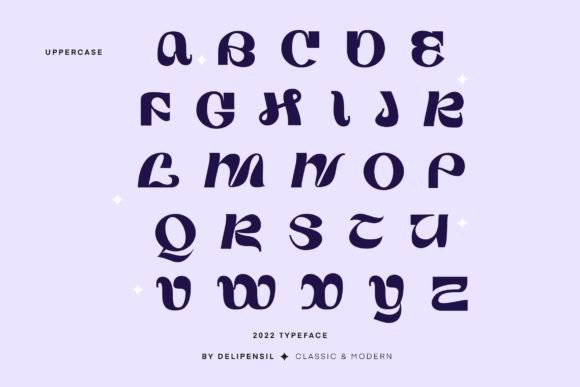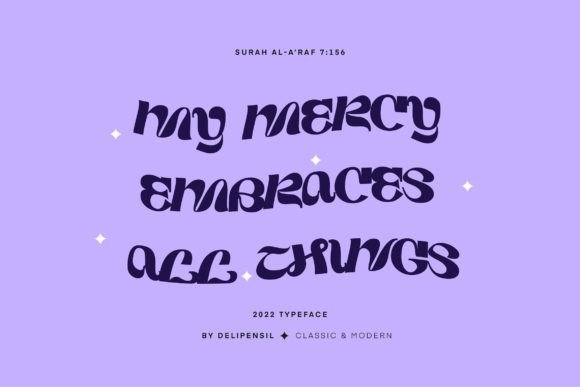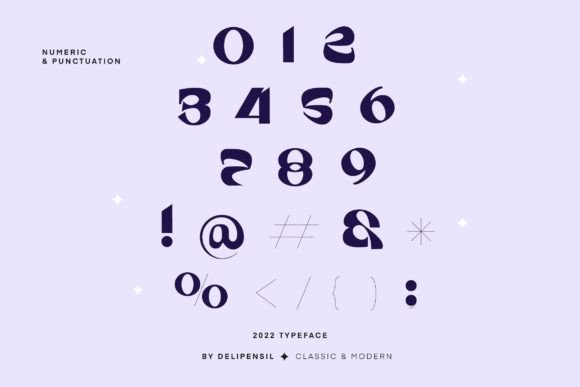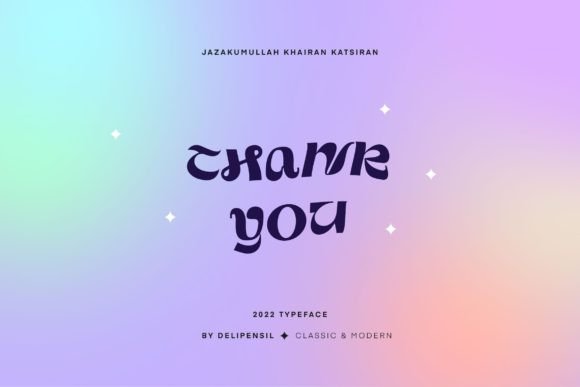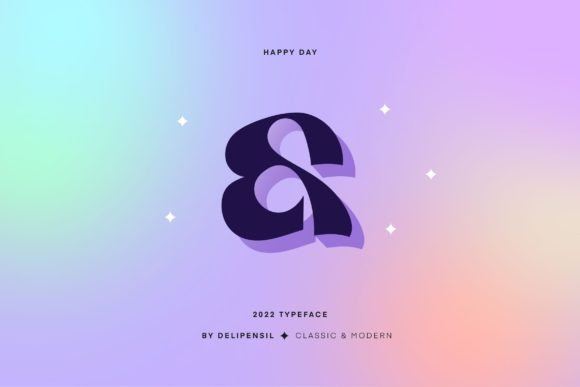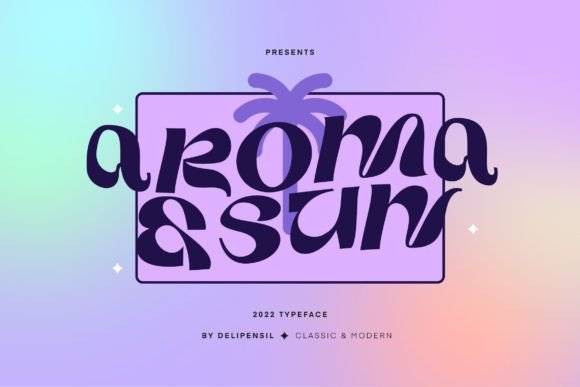
Aroma and Sun: Elevating Design with Timeless Elegance and Modern Flair
In the realm of typography, the right font can transform a design project from ordinary to extraordinary. For those seeking a blend of classic sophistication and contemporary style, the Aroma and Sun font stands out as an exceptional choice. This modern serif font skillfully merges timeless elegance with a touch of modern flair, making it an ideal addition to any design endeavor.
The Essence of Aroma and Sun Font
Aroma and Sun is characterized by its graceful serifs and distinctive wavy lines, which together create a harmonious blend of tradition and innovation. This unique combination not only sets it apart from other serif fonts but also makes it incredibly versatile. Whether you’re working on a branding project, a website design, or crafting beautiful stationery, Aroma and Sun brings a level of sophistication and refinement that’s hard to match.
Key Features of Aroma and Sun
- Timeless Elegance: The serif design of Aroma and Sun harks back to traditional typography, evoking a sense of classic elegance and luxury.
- Modern Flair: The wavy lines and contemporary style elements infused into the font give it a modern edge, making it perfect for designs that require a fresh look.
- Versatility: Aroma and Sun’s unique blend of old and new makes it suitable for a wide range of design projects, from luxury brands to creative crafts.
- Readability: Despite its elegant and sophisticated appearance, the font maintains high readability, ensuring that your message is conveyed clearly and effectively.
Applications of Aroma and Sun Font
The versatility of Aroma and Sun makes it an excellent choice for various design applications. Here are some of the areas where this font truly shines:
- Branding and Logo Design: The distinctive style of Aroma and Sun can help create a memorable brand identity that stands out from the competition.
- Website Design: Adding a touch of elegance to your website’s typography can significantly enhance user experience and make your site more engaging.
- Stationery and Print Design: For business cards, letterheads, or any printed materials, Aroma and Sun brings a level of sophistication that’s sure to impress.
- Packaging Design: The font’s modern yet classic appearance makes it an excellent choice for product packaging, especially for brands aiming to convey luxury and quality.
Tips for Using Aroma and Sun Effectively
To maximize the impact of Aroma and Sun in your designs, consider the following tips:
- Pair it with Simplicity: Let the font be the focal point by pairing it with simple, clean design elements.
- Experiment with Sizes: Play with different font sizes to create visual hierarchy and emphasize key messages.
- Consider Color: Choose colors that complement the elegance of Aroma and Sun, such as neutral tones or rich jewel tones.
| Font Name | Aroma and Sun Font |
| Author | delipensil |
Aroma and Sun font is a remarkable addition to the world of typography, offering a perfect blend of classic elegance and modern style. Its versatility, readability, and distinctive appearance make it an invaluable tool for designers and crafters looking to elevate their projects. Whether you’re aiming to create a luxurious brand image, design an engaging website, or craft beautiful printed materials, Aroma and Sun is sure to meet your needs and exceed your expectations.
Embrace the beauty of Aroma and Sun in your next design project and experience the transformative power of typography.